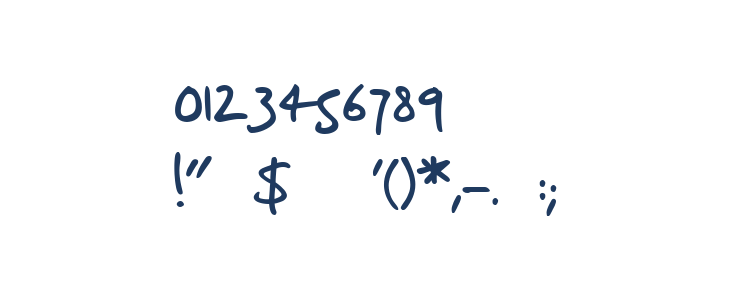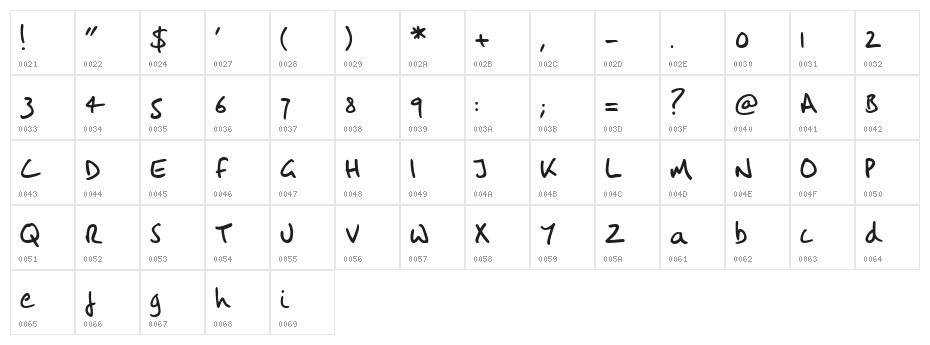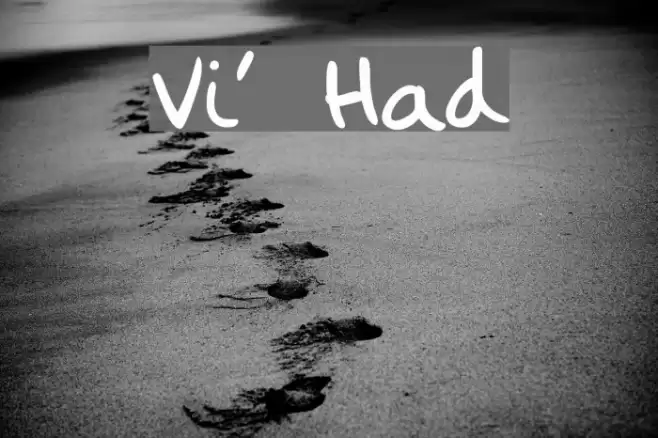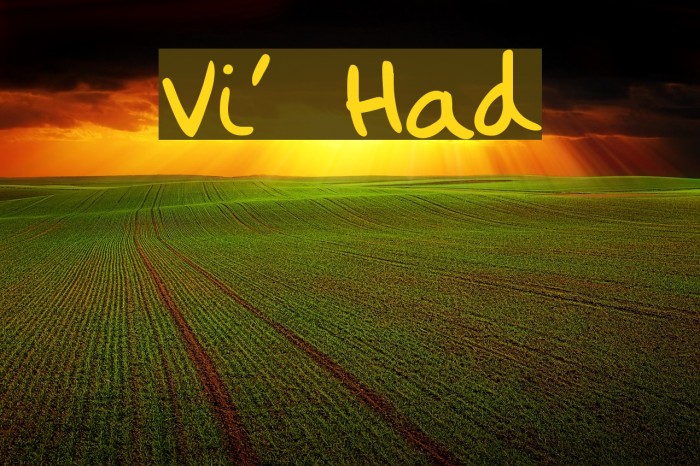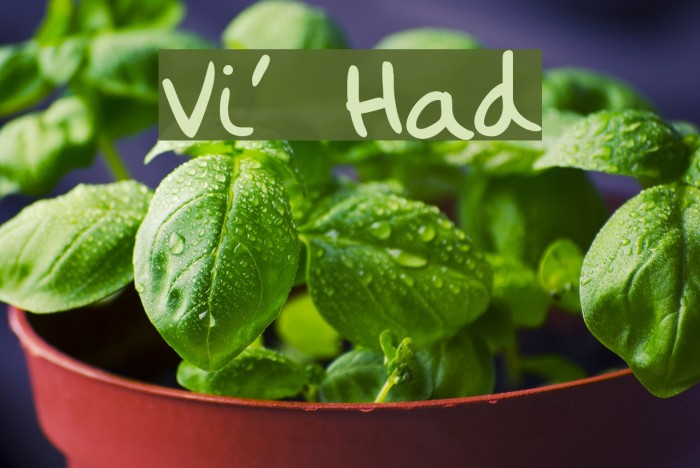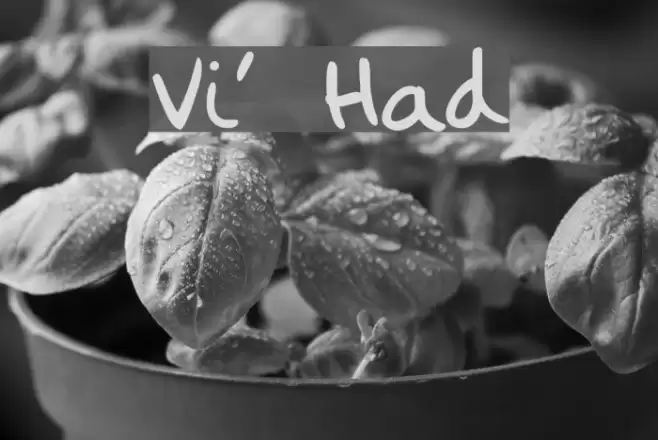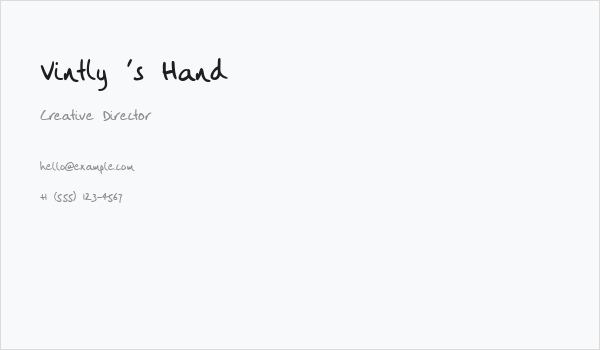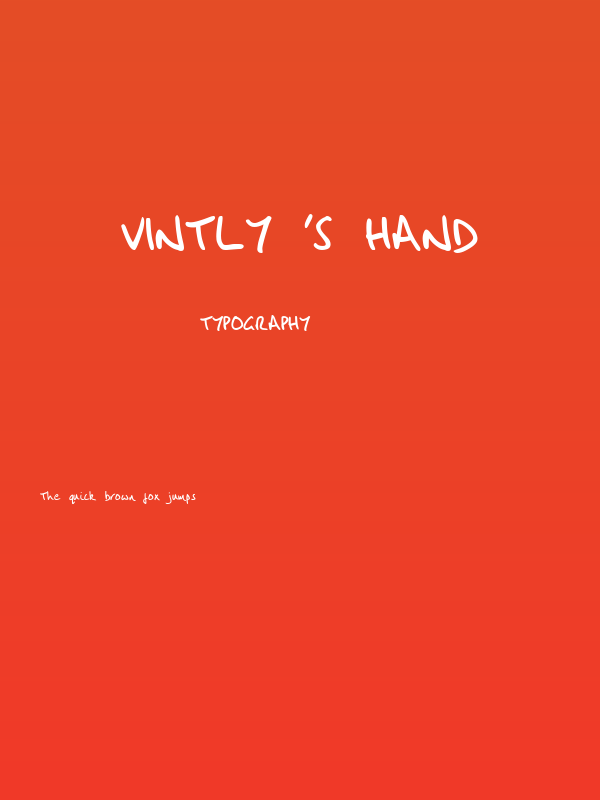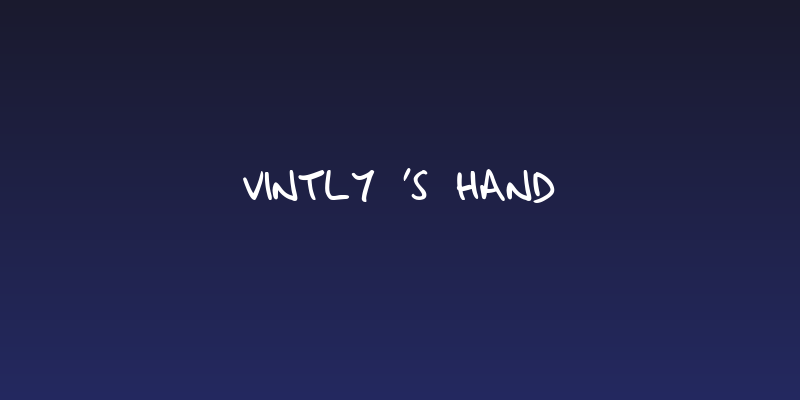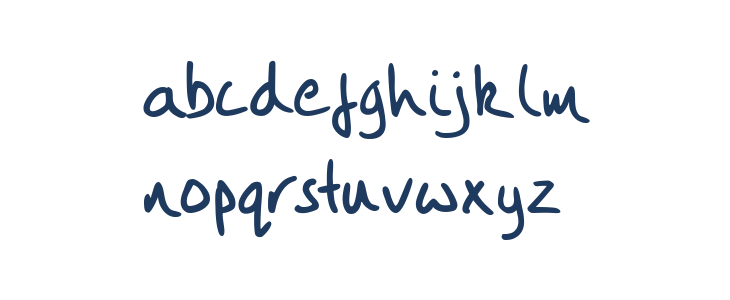
Vintly's Hand Font
Vintly's Hand Description
This font exudes a casual and friendly handwritten style, characterized by its smooth, flowing lines and slightly irregular shapes that mimic natural handwriting. The uppercase letters are bold and prominent, while the lowercase letters maintain a consistent flow, enhancing readability. The numbers and special characters are crafted with the same playful and informal touch, making them blend seamlessly with the alphabet. This font's overall appearance is approachable and personal, ideal for projects that require a human touch.
| Use Case | Logos, Invitations, Greeting cards |
| Proposed Projects | Ideal for personal notes, invitations, greeting cards, and informal branding projects. |